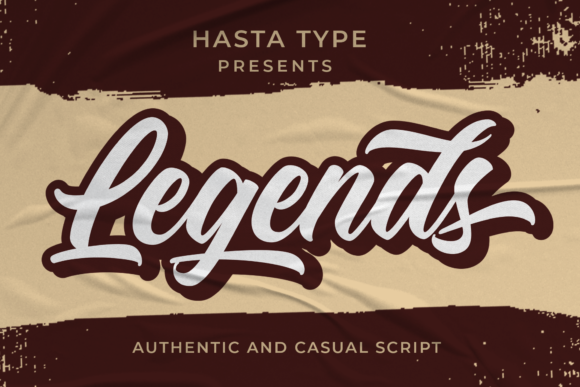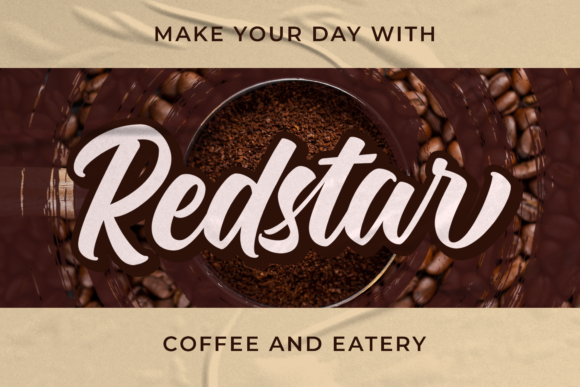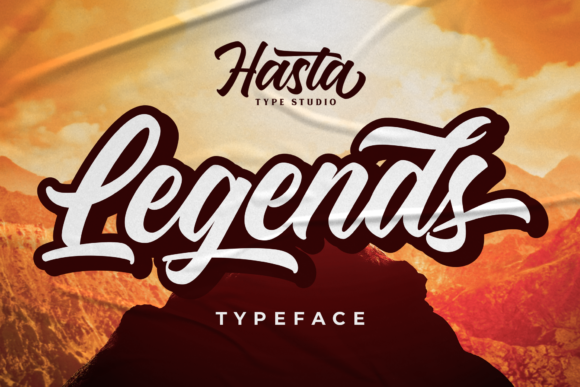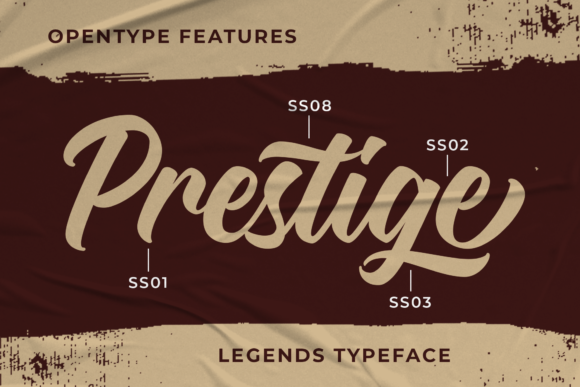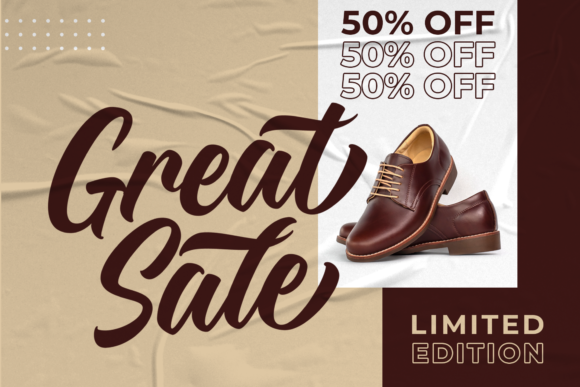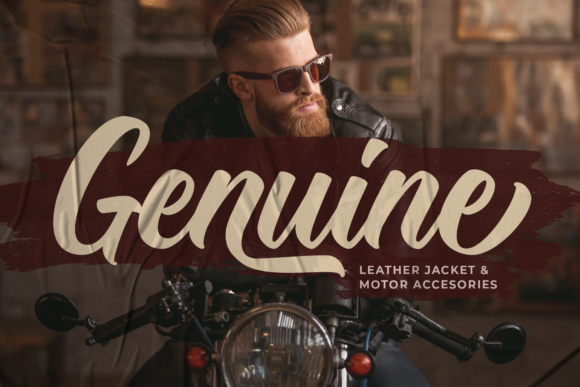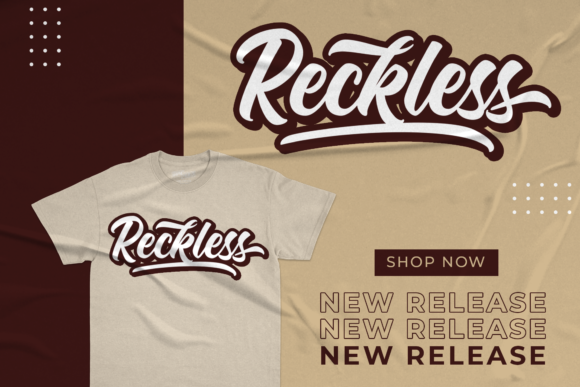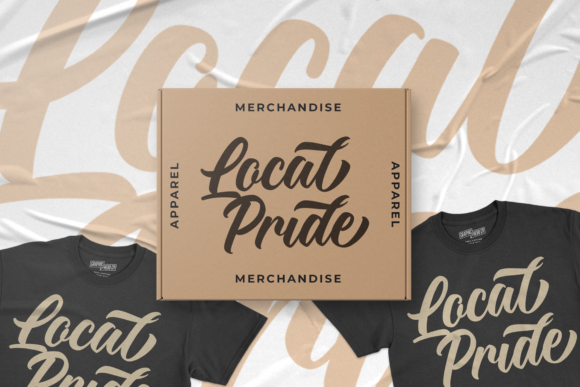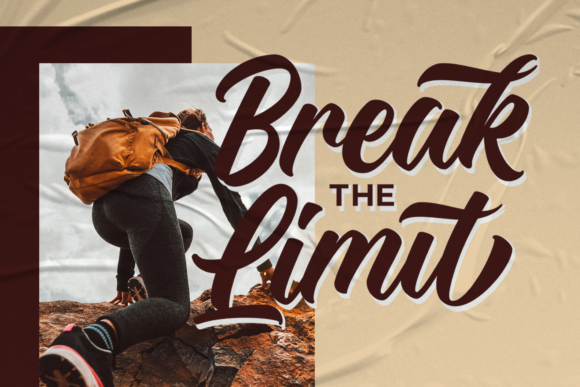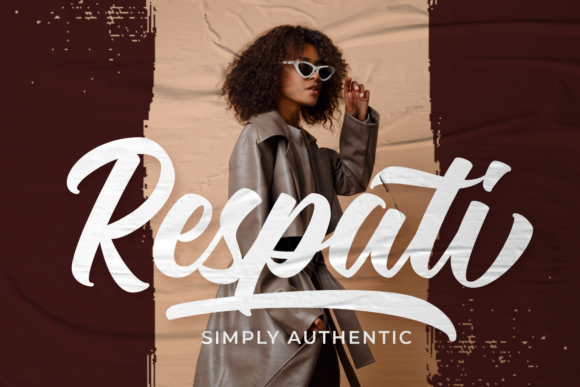
Legends Font
About Legends Font
Legends is a charming handwritten font that exudes an authentic and personal touch. With its unique style, it is the ideal choice for various design projects, ranging from logos and branding to product packaging and beyond. Here are some creative ways you can utilize the Legends font to enhance your designs:
1. Logo Design: Create eye-catching and memorable logos with Legends, capturing the essence of your brand and leaving a lasting impression on your audience.
2. Branding: Use Legends to establish a consistent and cohesive brand identity across various marketing materials, ensuring your brand’s authenticity shines through.
3. Product Packaging: Design captivating product labels and packaging using Legends, adding a touch of warmth and personality to your products.
4. Signage: Utilize Legends for signs and banners to add a personal and inviting feel to your storefront or event.
5. Quotes and Posters: Create inspiring quote graphics and posters using Legends, infusing them with an authentic and heartfelt touch.
6. Greeting Cards: Design heartwarming greeting cards for various occasions, such as birthdays, holidays, and special events, using the Legends font.
7. Social Media Graphics: Craft engaging and shareable social media posts using Legends, making your content stand out from the crowd.
8. Handmade Crafts: Incorporate Legends into handmade crafts such as personalized gifts, scrapbooks, and DIY projects, adding a personal and heartfelt touch.
9. Book Covers: Use Legends for book covers to give your titles a charming and authentic look, enticing readers with its unique style.
10. Wedding Invitations: Design elegant and romantic wedding invitations with Legends, setting the tone for a memorable celebration.
11. Stationery: Personalize stationery items like letterheads, notepads, and envelopes with the Legends font to add a touch of authenticity to your correspondence.
12. Website Headings: Utilize Legends for headings and subheadings on your website, enhancing the visual appeal and giving it a personal touch.
13. Apparel Design: Create custom apparel designs with Legends, adding a unique and authentic touch to your clothing line.
14. Packaging Design: Use Legends to create packaging designs for various products, enhancing the overall brand experience for customers.
15. Restaurant Menus: Design rustic and inviting menus for restaurants and cafes with Legends, adding a touch of authenticity to the dining experience.
Legends is the perfect choice for any project that requires a personal and genuine touch. Its handwritten feel and PUA encoding, allowing easy access to glyphs and swashes, make it a versatile and beloved font for designers and creatives alike. Embrace the authenticity of Legends and let it elevate your designs to new heights!